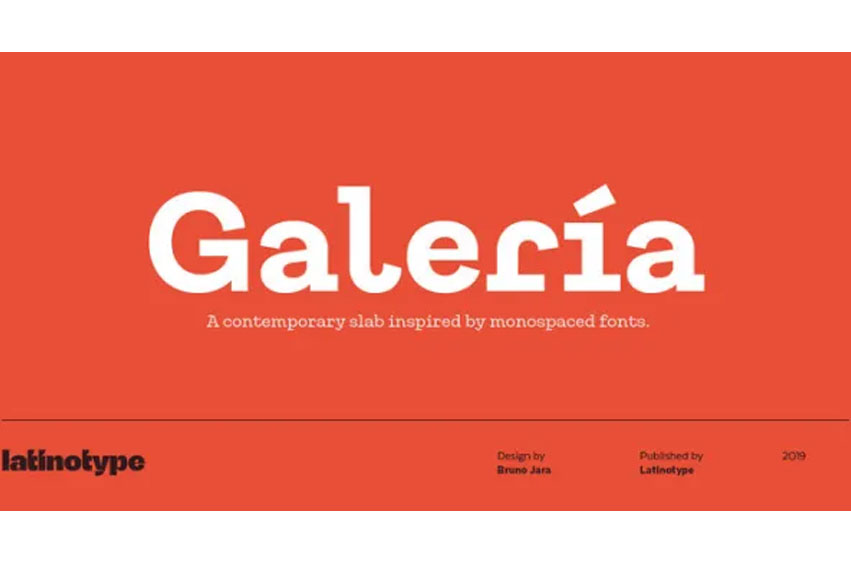
Galeria Font
Galeria Font is a monoline slab serif typeface inspired by world contemporary art gallery buildings, museums and cultural centers where organic forms and straight lines predominate.
Galería combines functionality of a slab serif with the distinctive appearance of monospaced fonts—exaggerated serifs, wide proportions, distinguishing characters, contrasting geometric shapes and lengthened terminals. This combination resulted in a dynamic and pregnant typeface, yet legible and functional, well-suited to museographic and editorial projects, corporate use, and strong brand identity design such as posters, logotypes and packaging.
Galería consists of a standard and an alternative version, each in 8 weights—ranging from Thin to Black—with matching italics. The font also includes OpenType features, like discretionary ligatures, and the whole 464-character set supports more than 200 Latin-based languages.